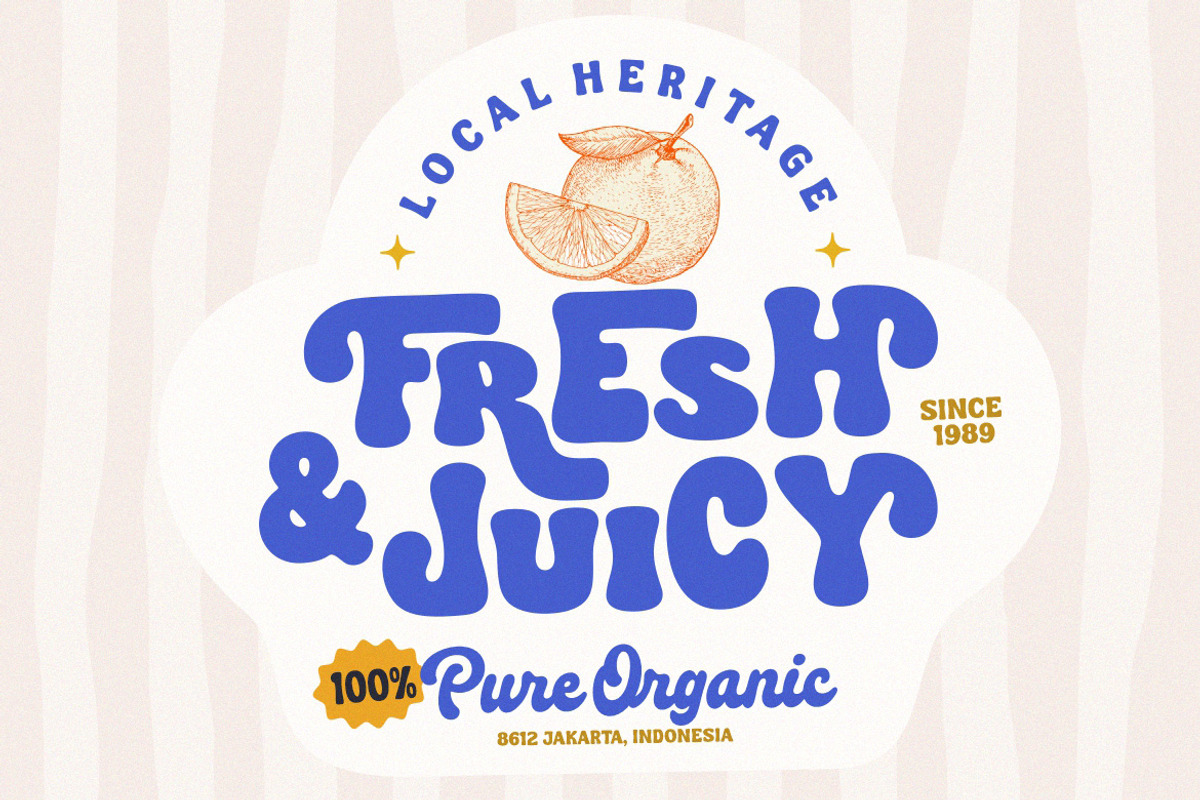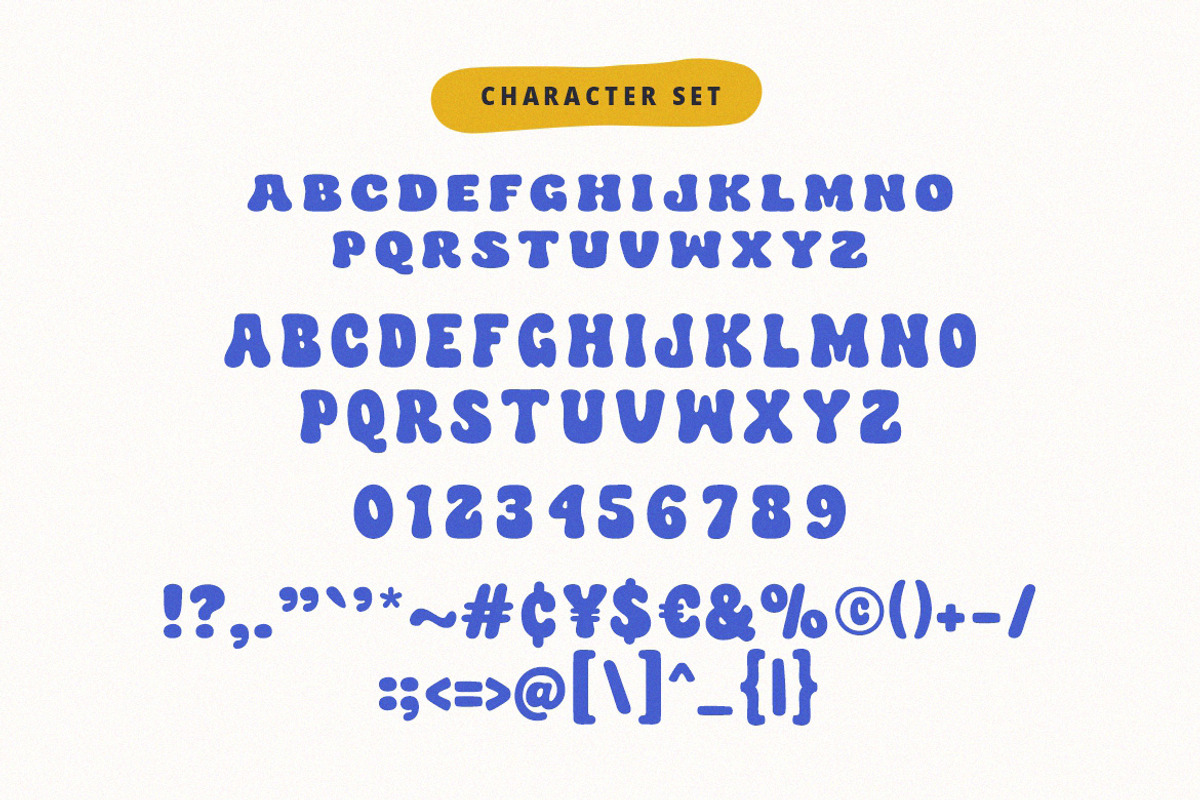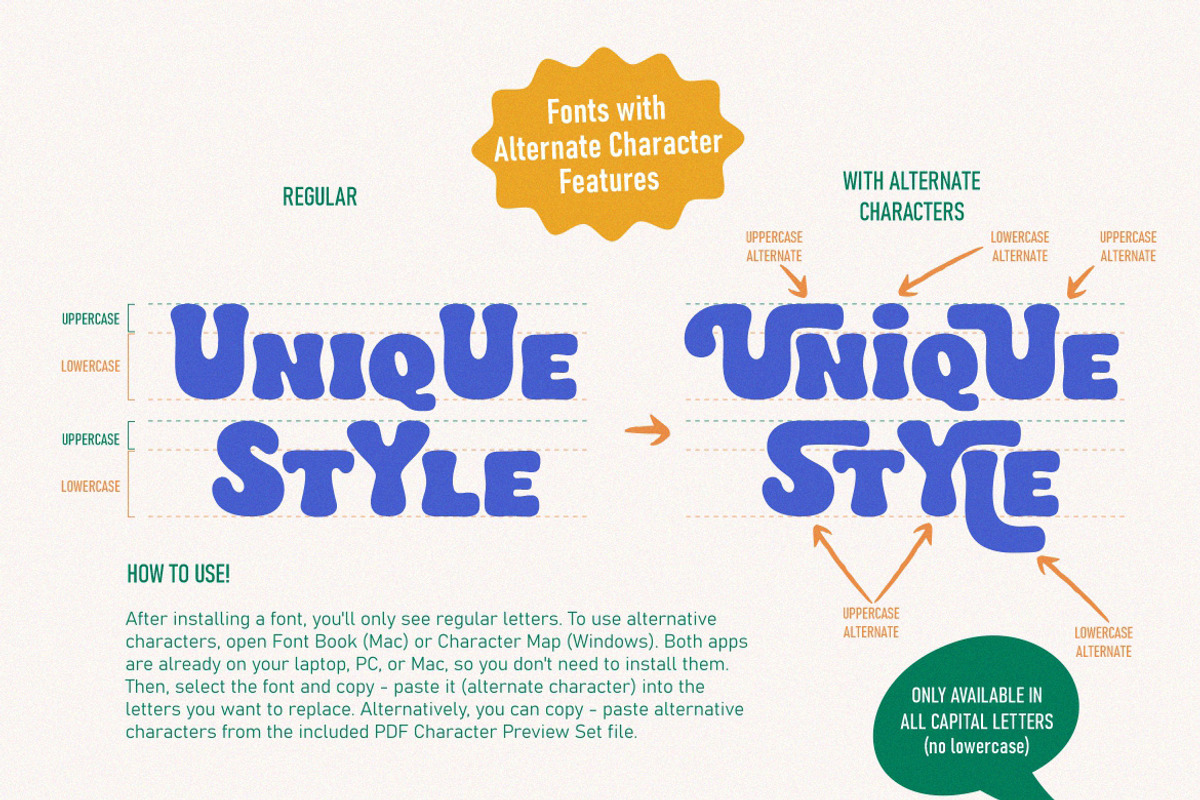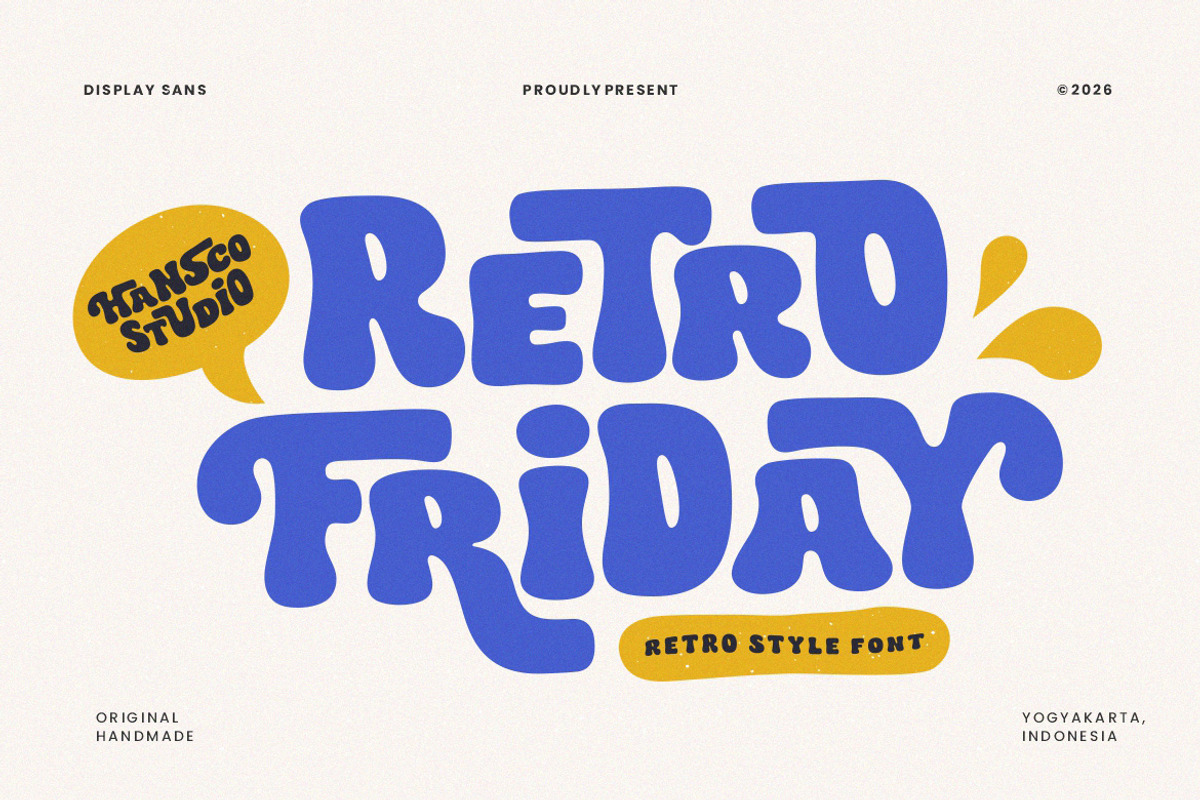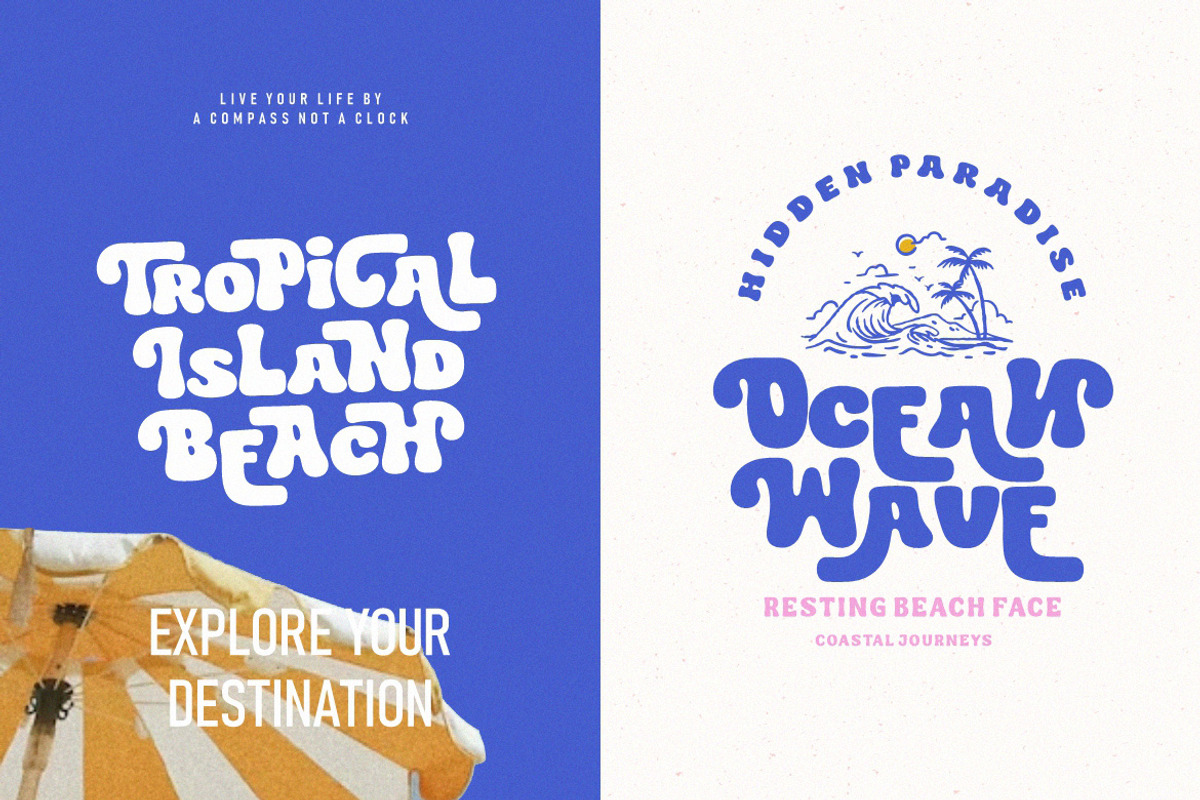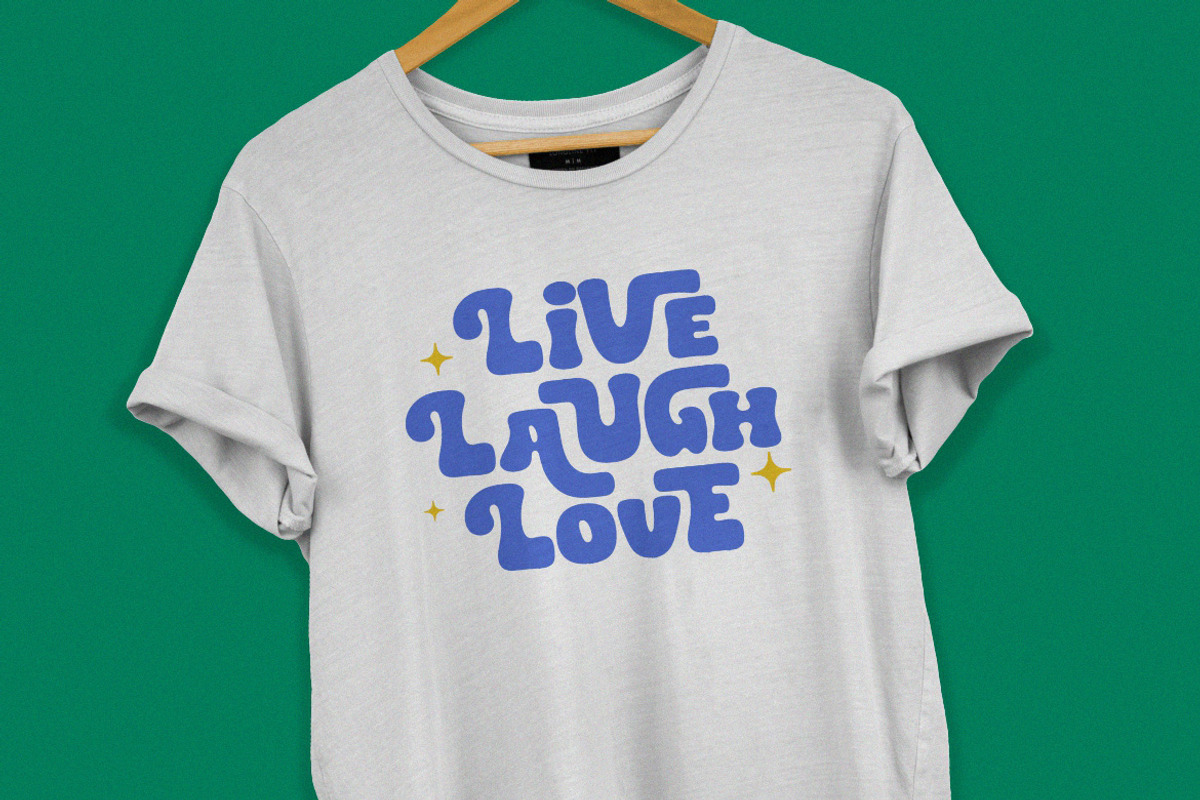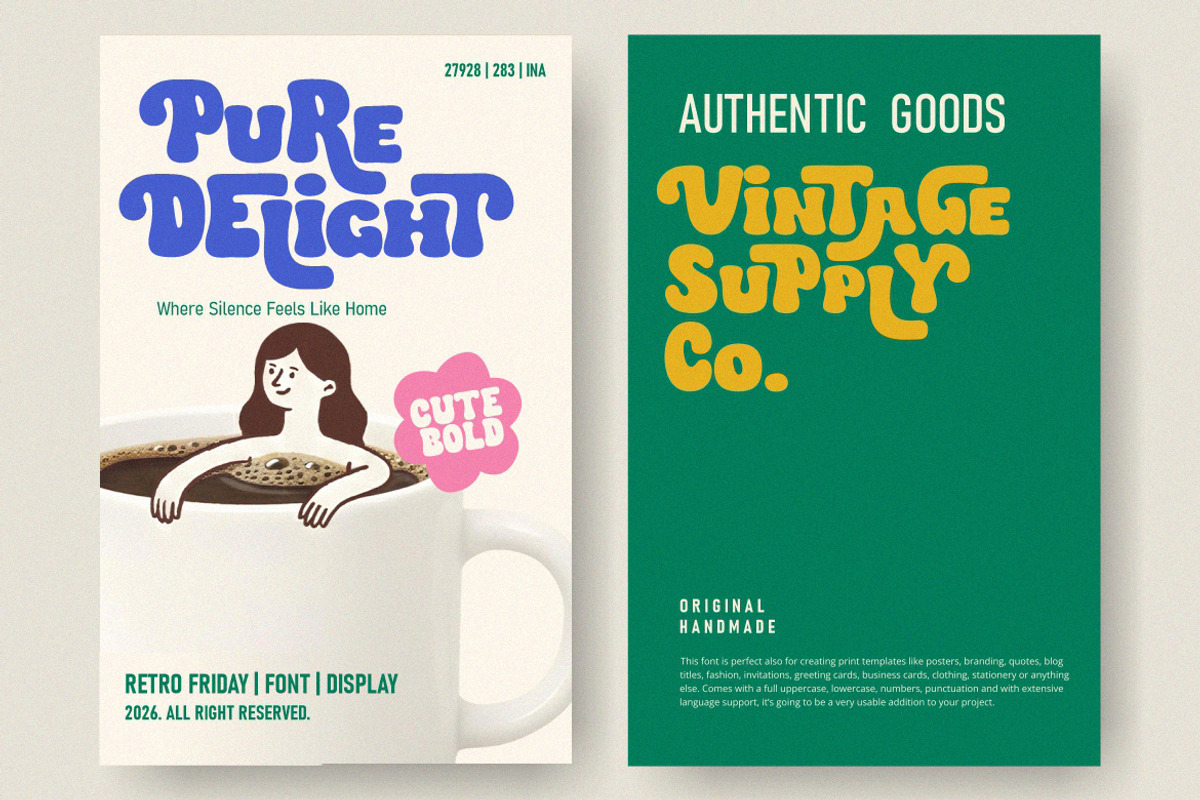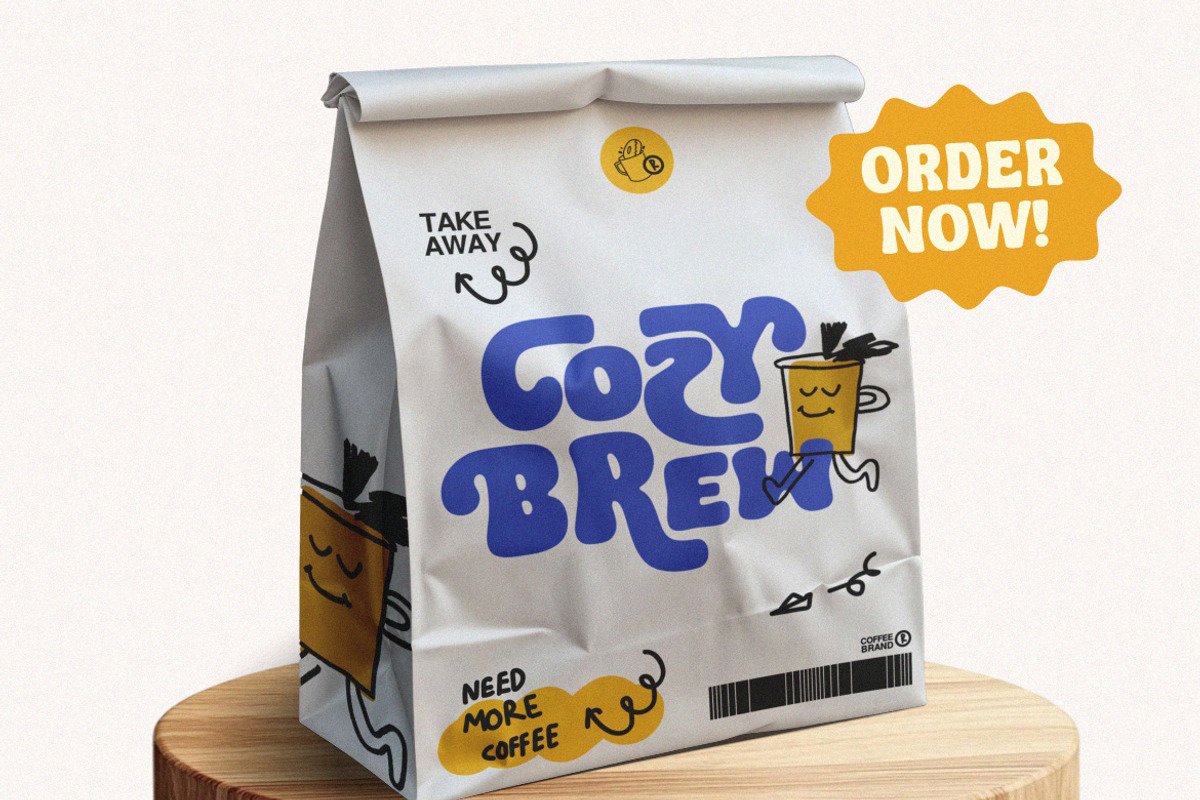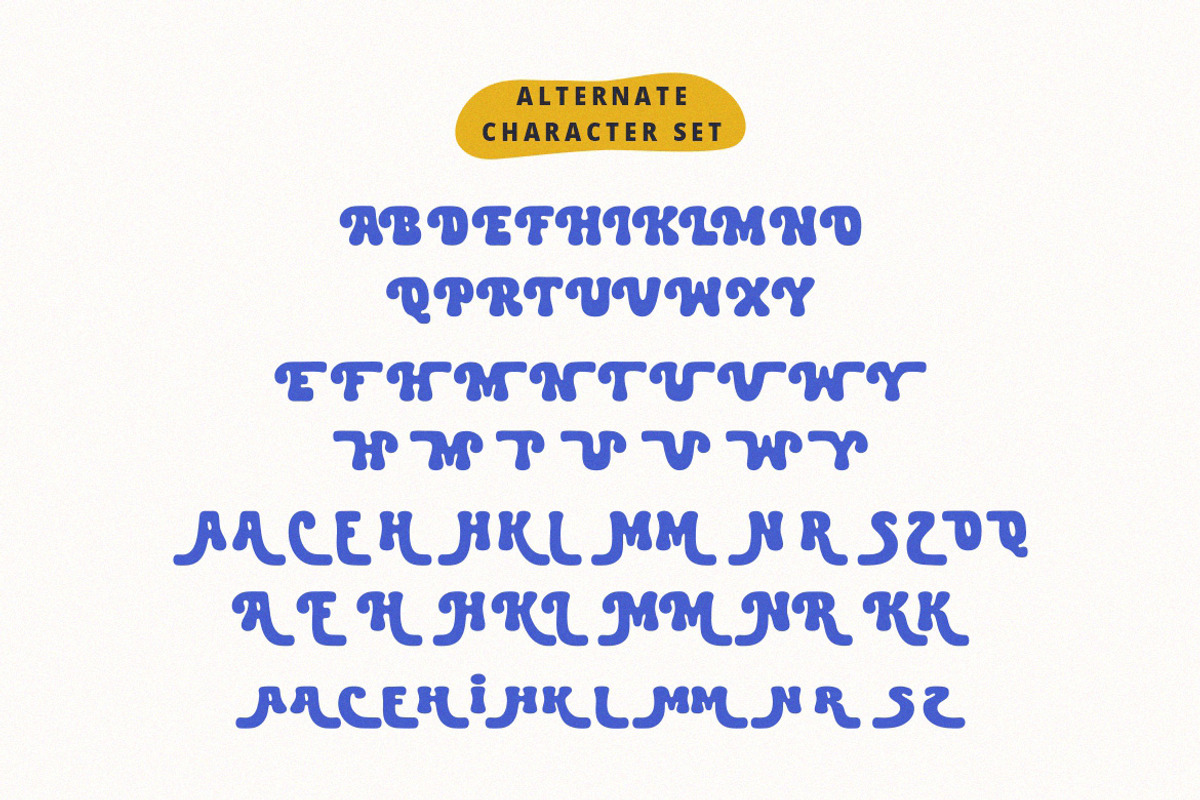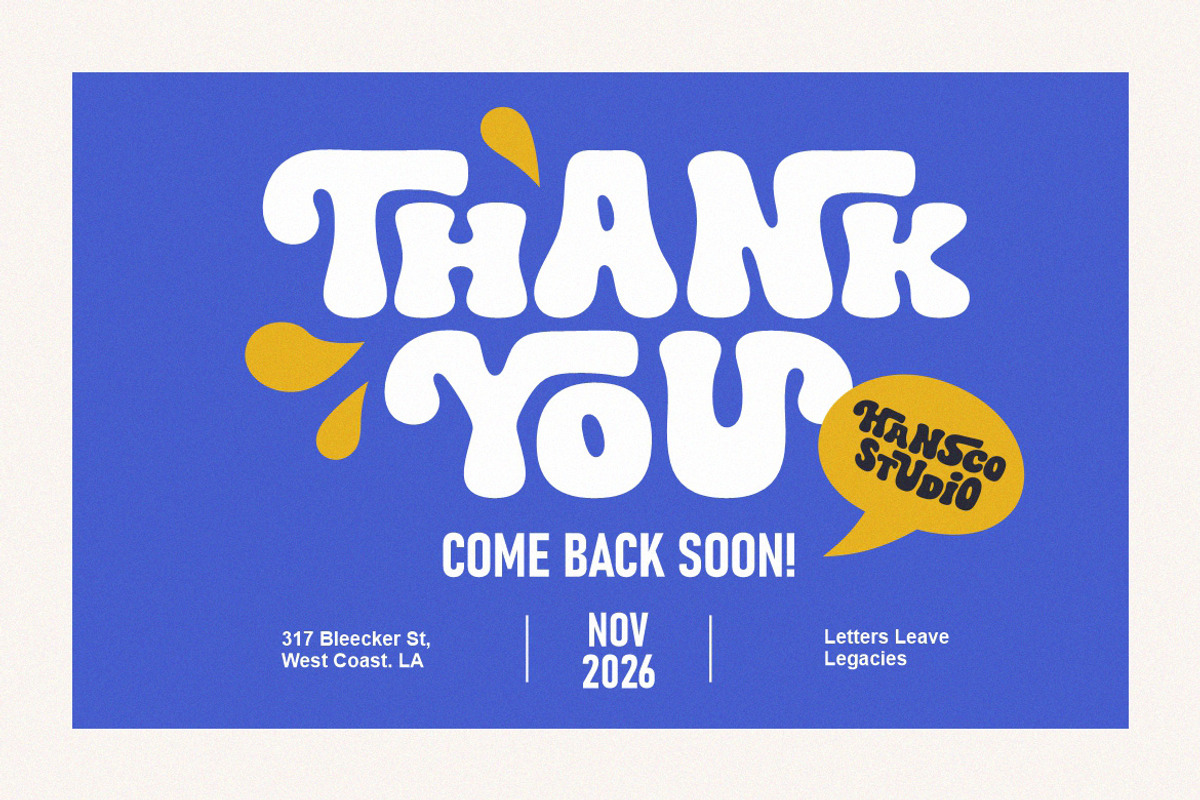
Retro Friday
Retro Friday font is a uniquely crafted retro groovy typeface designed to bring bold character and nostalgic charm to your designs. Built entirely in uppercase letters, it features a collection of stylish alternate characters that allow you to create more dynamic and expressive typography. Its playful curves and vintage-inspired shapes capture the spirit of classic retro aesthetics while still feeling fresh and distinctive. Perfect for logos, branding, posters, apparel designs, and other creative projects, this font helps your work stand out with a strong and memorable retro personality.
- All Uppercase